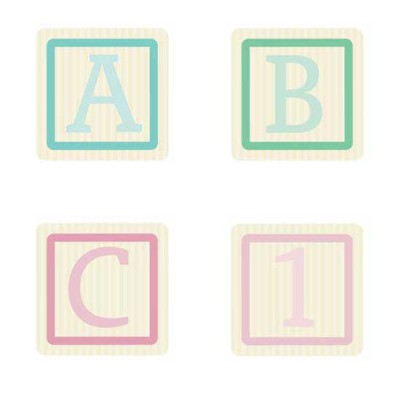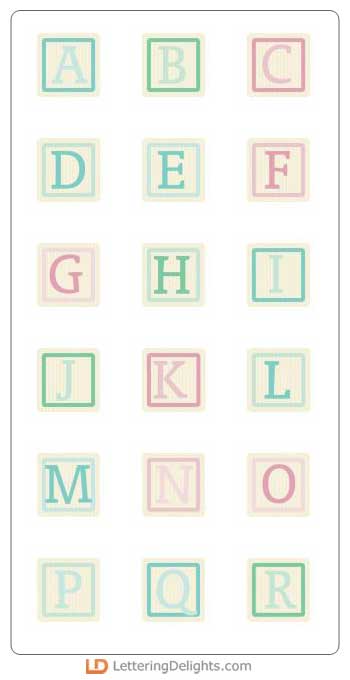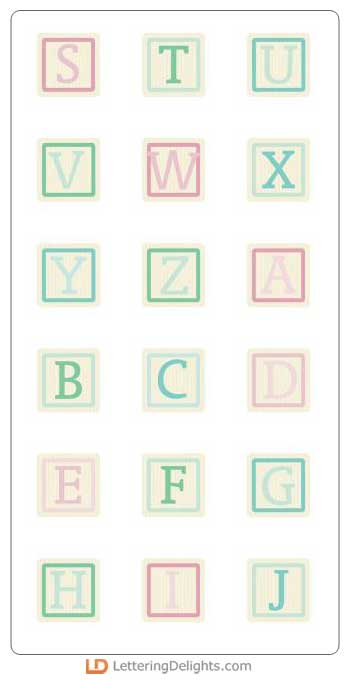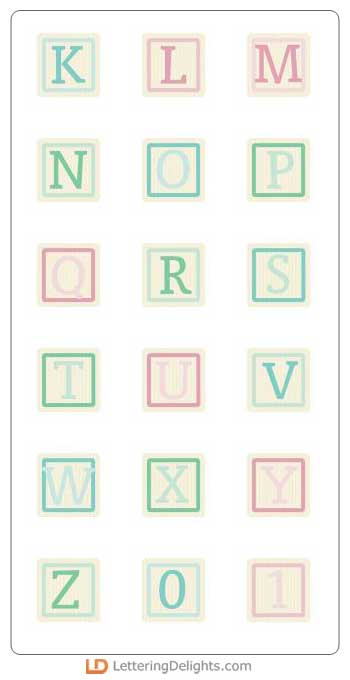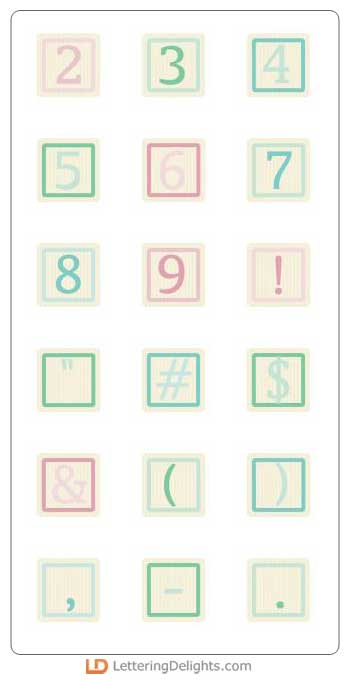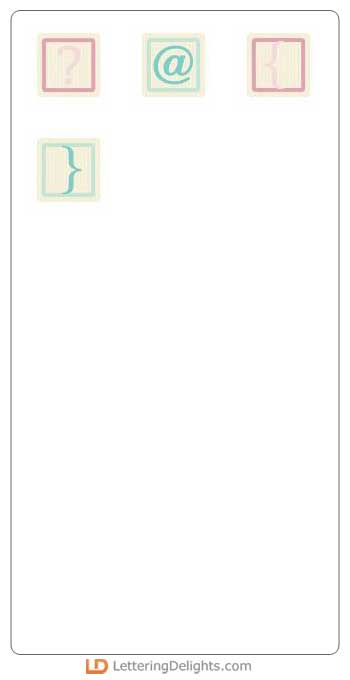
How is it possible that something as simple as a block with a letter on it can evoke such feelings of "ohhhh, how sweet!"?! But they do! And the Baby Cake Alphabet will have that same effect with your paper and scrapbooking creations.